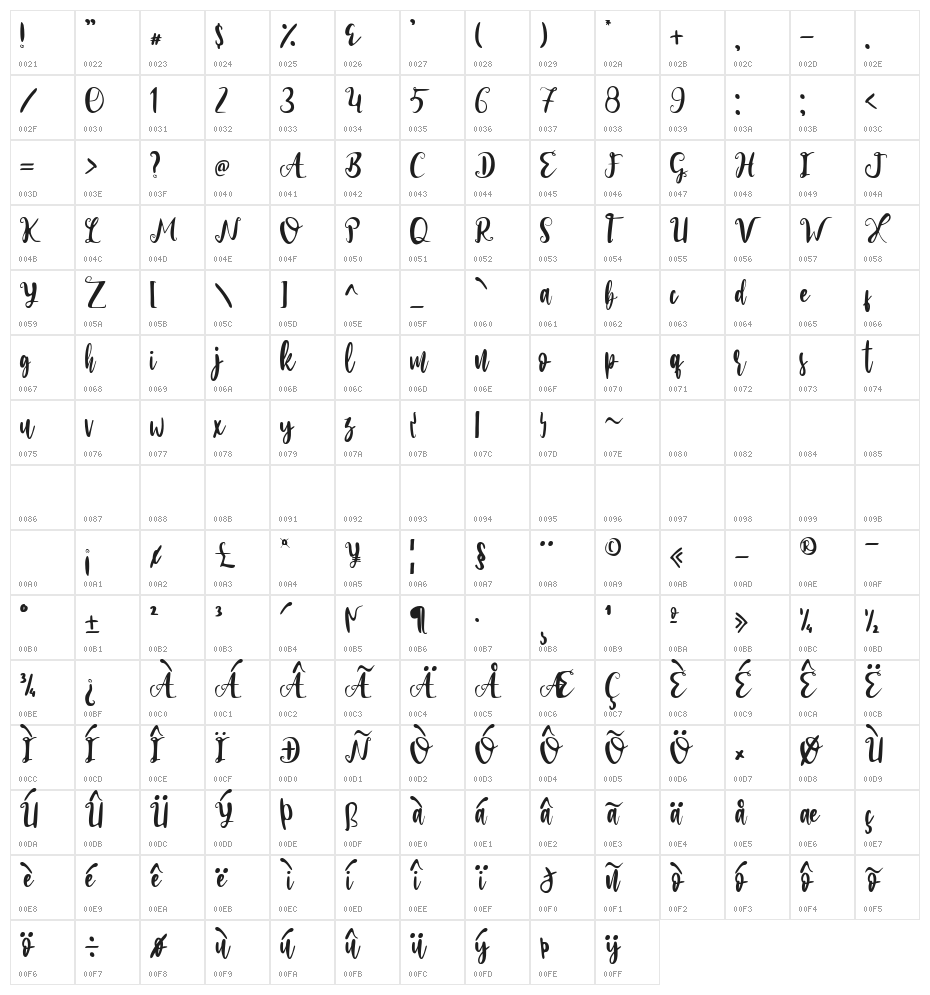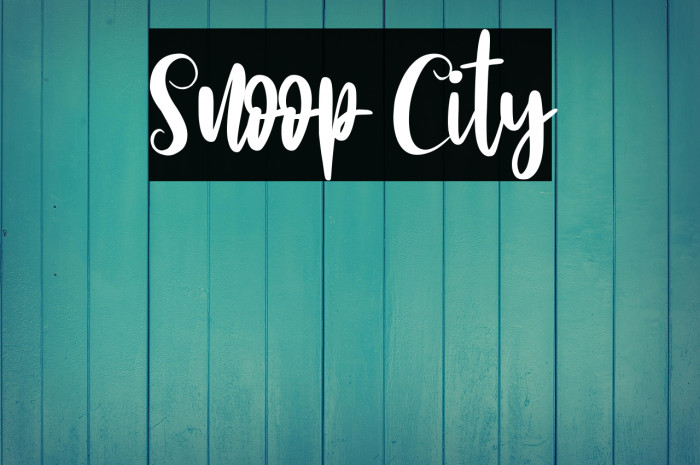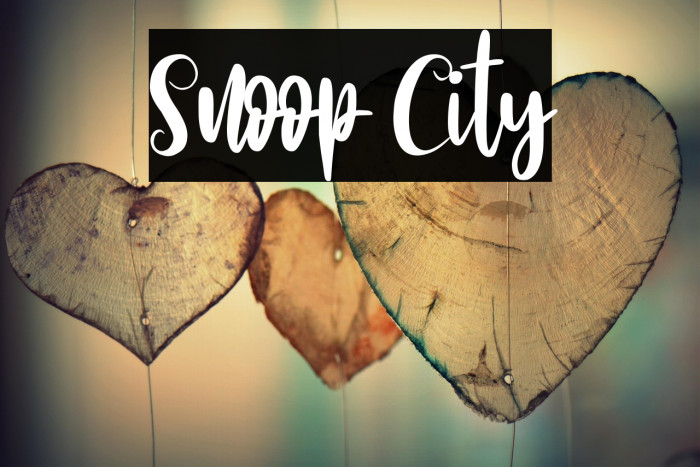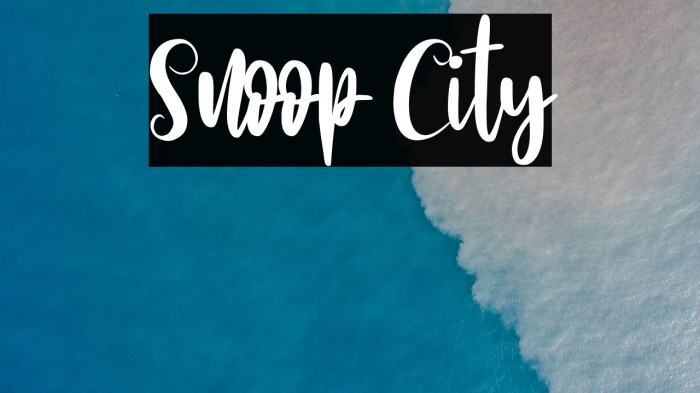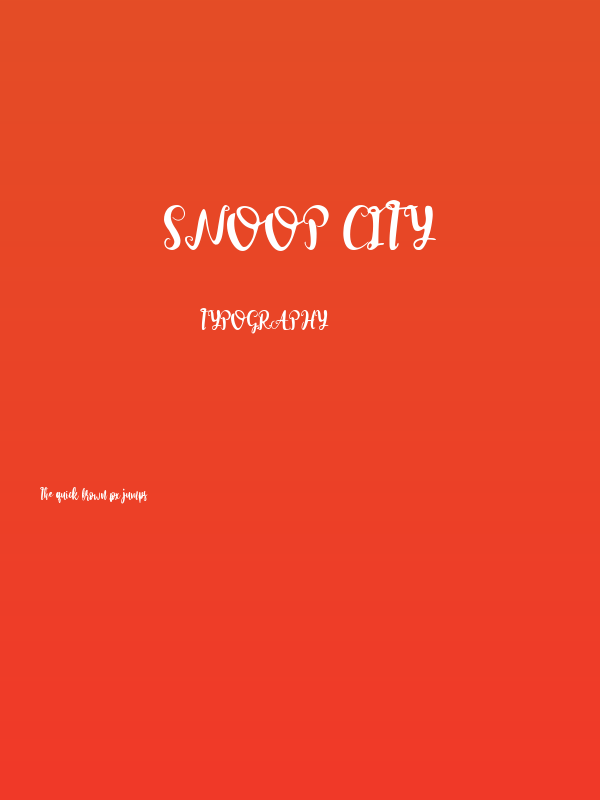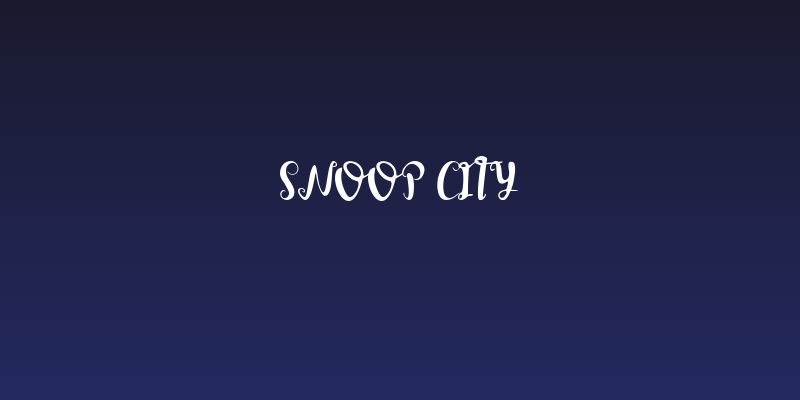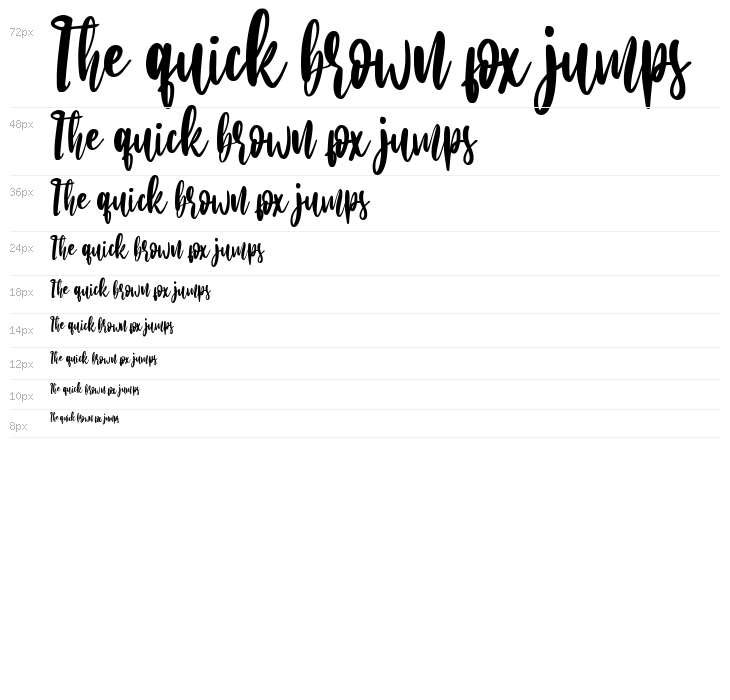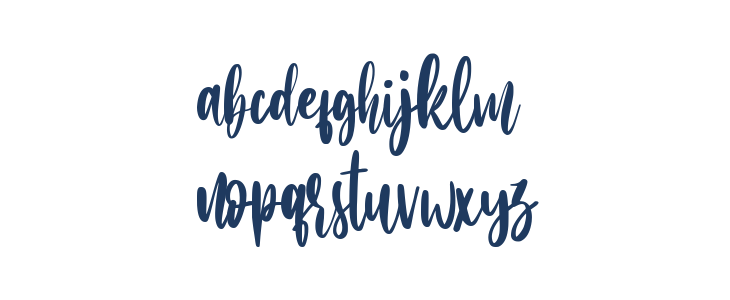
Snoop City Font
Snoop City Description
This font features an elegant and flowing script style, characterized by its smooth, cursive strokes and decorative flourishes. The uppercase letters are particularly ornate, with loops and swirls that add a touch of sophistication and charm. The lowercase letters maintain a consistent style, with a slightly more restrained design that ensures readability while still offering a graceful appearance. The numerals are bold and clear, with subtle curves that complement the overall aesthetic. Special characters are thoughtfully designed, incorporating the same flowing lines and embellishments seen throughout the alphabet. This font exudes a sense of elegance and creativity, making it ideal for projects that require a personal and artistic touch.
Overall StyleElegant, Decorative
Use CaseLogos, Invitations, Greeting Cards
Proposed ProjectsIdeal for wedding invitations, greeting cards, branding, and logo design where a personal and artistic touch is desired.